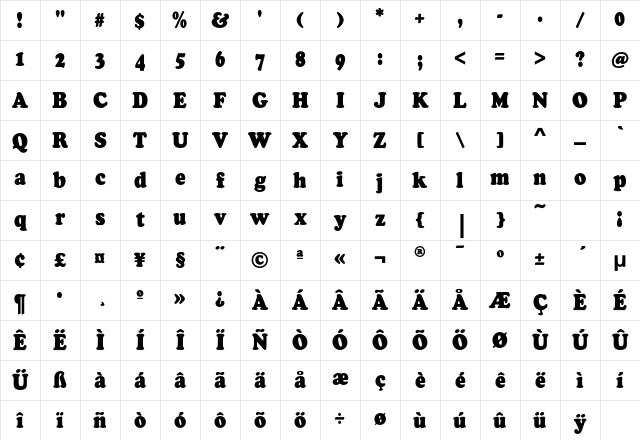
Complete CooperBlackEF-BoldCondensed Regular glyph index. Displaying only characters natively supported by CooperBlackEF-BoldCondensed Regular font.
CooperBlackEF-BoldCondensed is a composed and adaptable typeface that performs quietly and consistently across a wide range of design contexts. Its bold stroke weight gives it real presence on the page. Its narrow stance lets it pack a punch even in space-constrained designs.